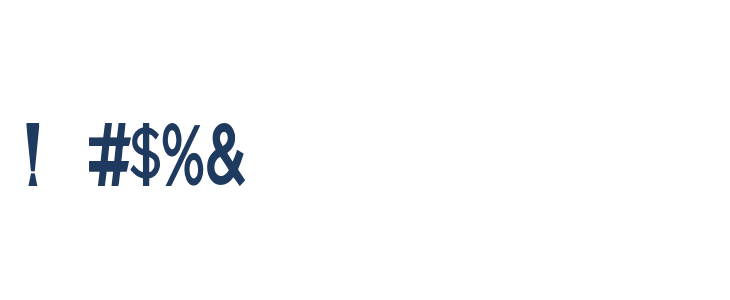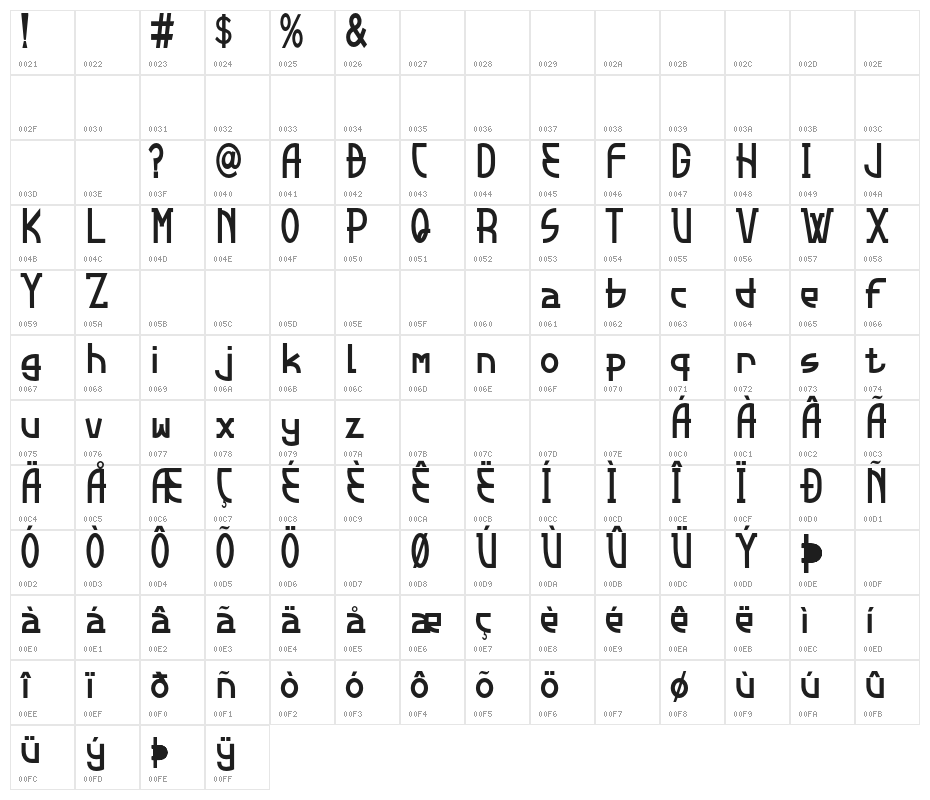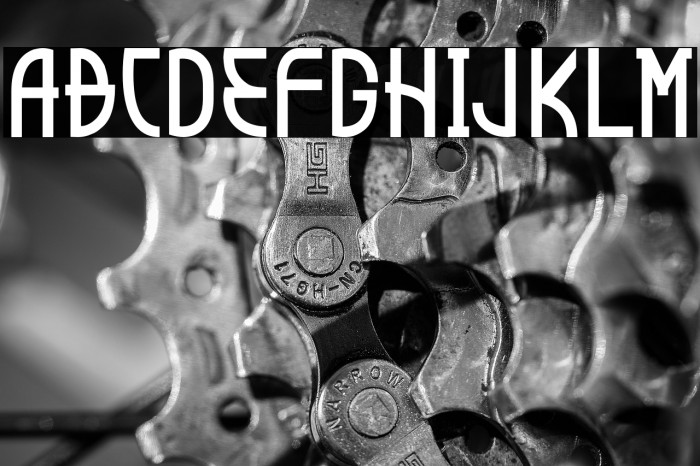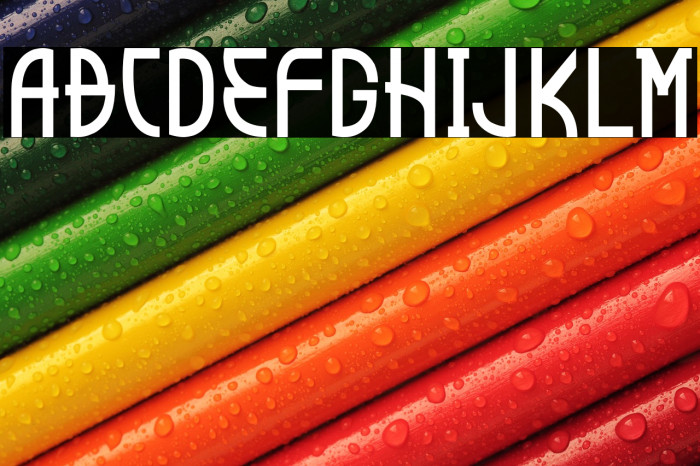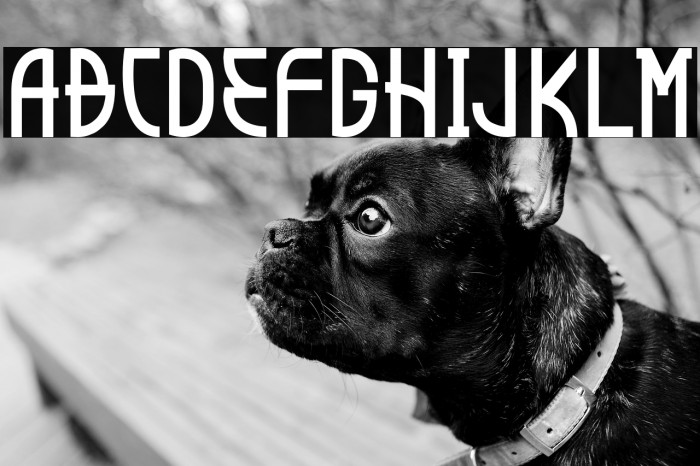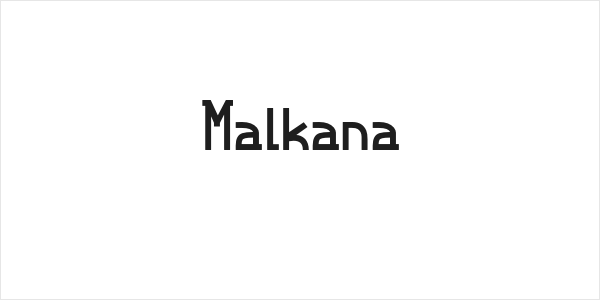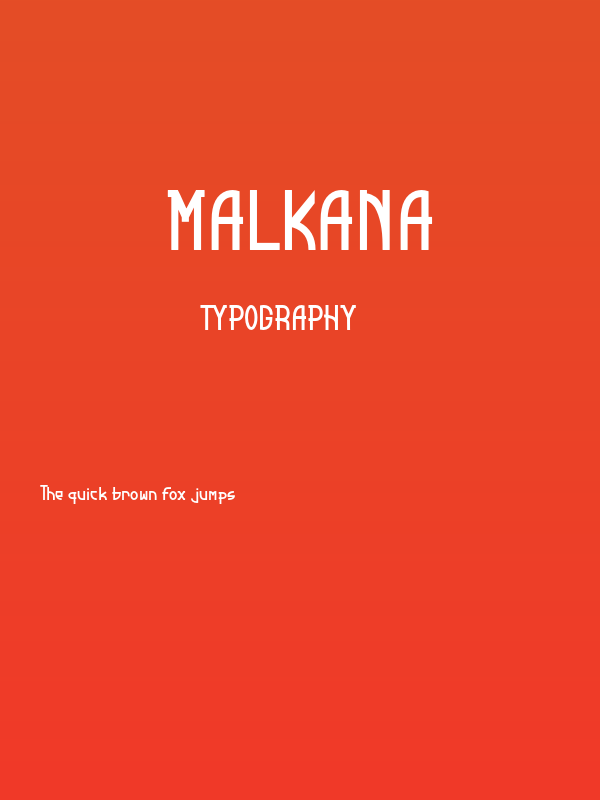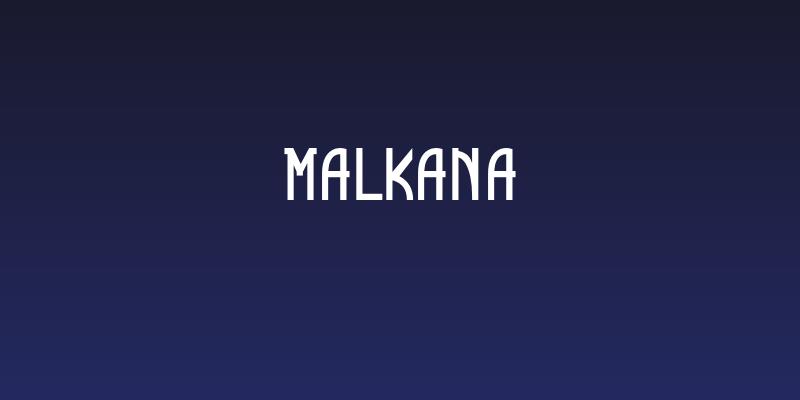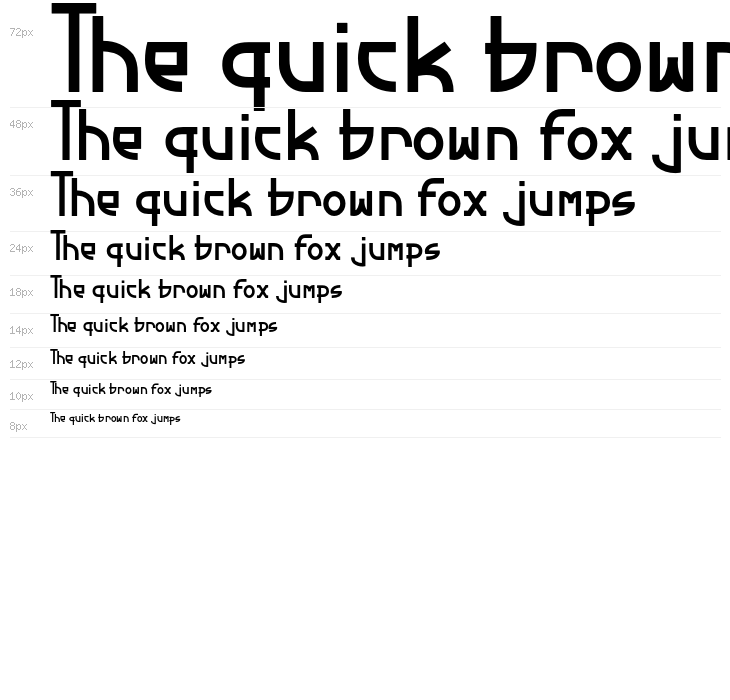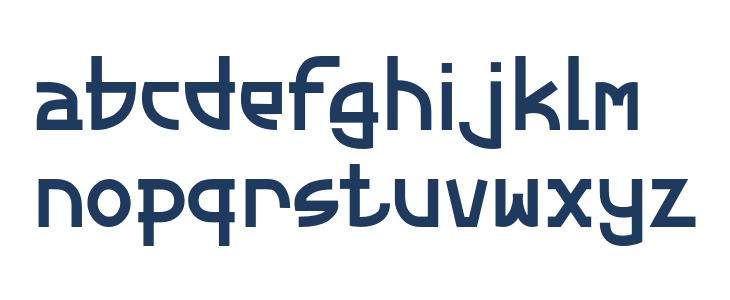
Malkana Font
Malkana Description
This font features a unique and modern design with geometric influences. The uppercase letters exhibit a bold and structured appearance, with sharp angles and clean lines that create a futuristic feel. The lowercase letters maintain a consistent style, offering a harmonious blend of curves and straight edges. The numerals are distinct and easily readable, while the special characters complement the overall aesthetic. This font's design is both eye-catching and versatile, making it suitable for a variety of creative applications.
| Proposed Projects | Ideal for branding, posters, and digital media where a modern and distinctive look is desired. |